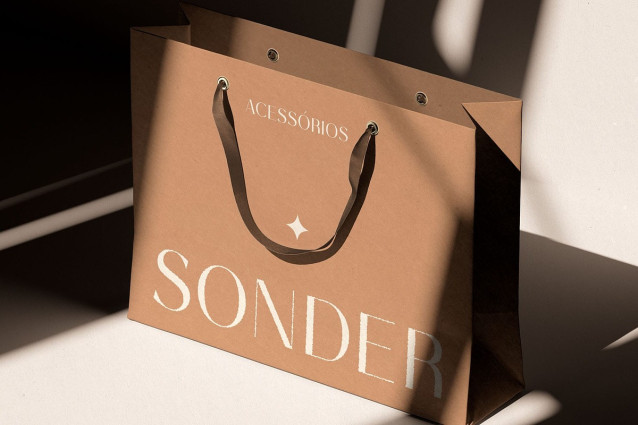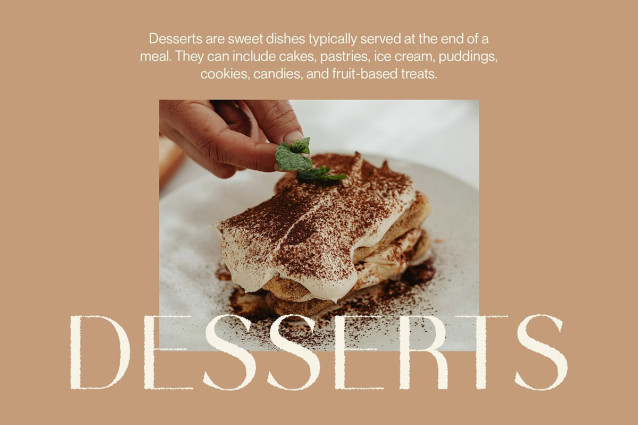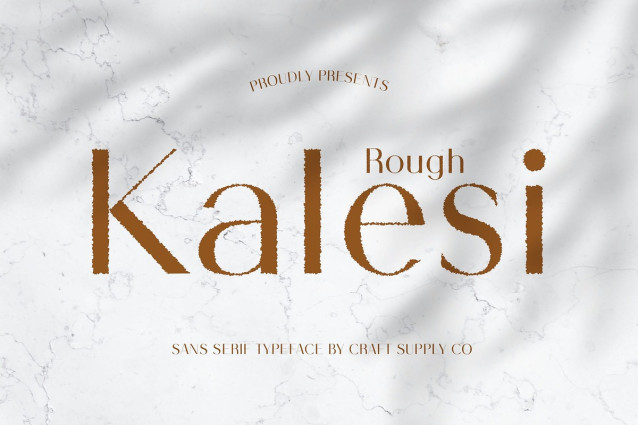
Kalesi Rough Font
Kalesi Rough Font is a modern sans-serif font that combines clean, geometric shapes with a balanced and minimalist structure, offering a design that is both sophisticated and contemporary. Its letterforms exude clarity and refinement, making it ideal for designers who want to achieve a polished and professional look while maintaining visual harmony across all applications.
Soft Rough Texture for Subtle Character What truly defines Kalesi Rough is its subtle rough texture, delicately etched into its otherwise clean lines. This soft irregularity adds a sense of tactility and uniqueness, giving the font a more organic and handcrafted feel. The contrast between the minimalist base and the rough detailing creates a quiet tension that draws the viewer in—perfect for designs that need personality without compromising structure or legibility.
A Balance of Modernity and Expression The duality of Kalesi Rough lies in its ability to balance simplicity with expression. It reflects the clarity of modern design while introducing an artful nuance that keeps it fresh and distinct. Whether applied in branding systems, editorial design, or digital platforms.
Perfect for Branding, Editorials & Packaging Kalesi Rough performs beautifully in premium branding, high-end packaging, fashion lookbooks, and modern editorial spreads. It’s the ideal choice for projects that aim to elevate visual storytelling with clean sophistication and subtle edge.